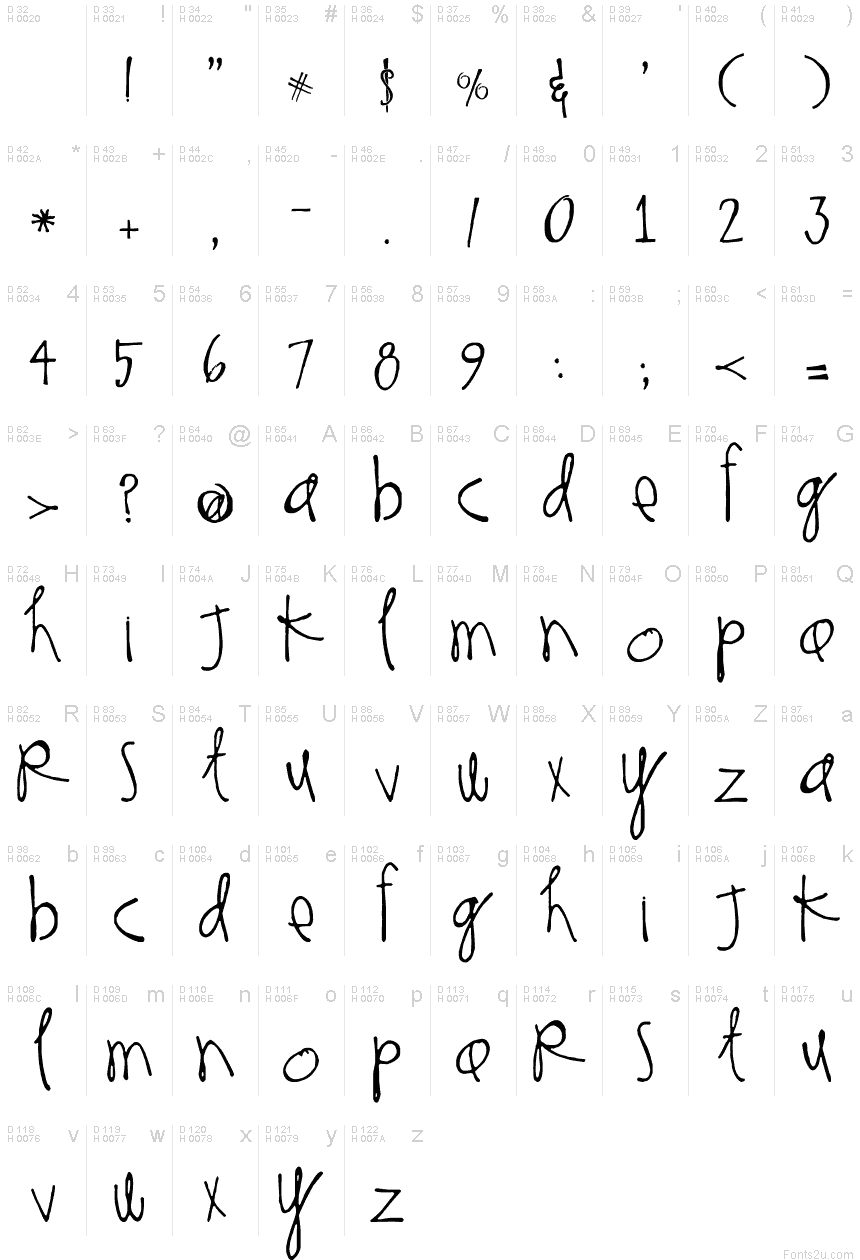
Thinking of You is a free handwritten display font with the loose, unpolished look of quick marker lettering. Its tall, wavering strokes and uneven joins feel genuinely hand drawn.
As an informal handwritten note within a design, it suits greeting cards, personal stationery, and scrapbook pages, where the irregular lines echo real pen marks. The same direct, youthful manner also makes it useful for classroom posters and children's activity materials aimed at families, teachers, and young readers.
Thinking of You